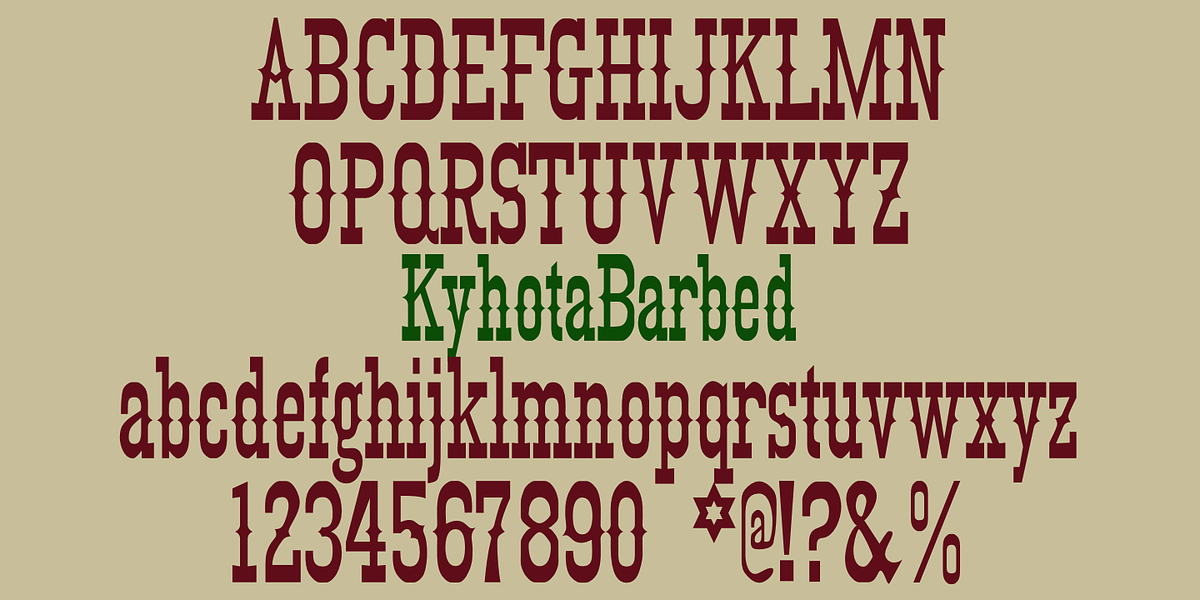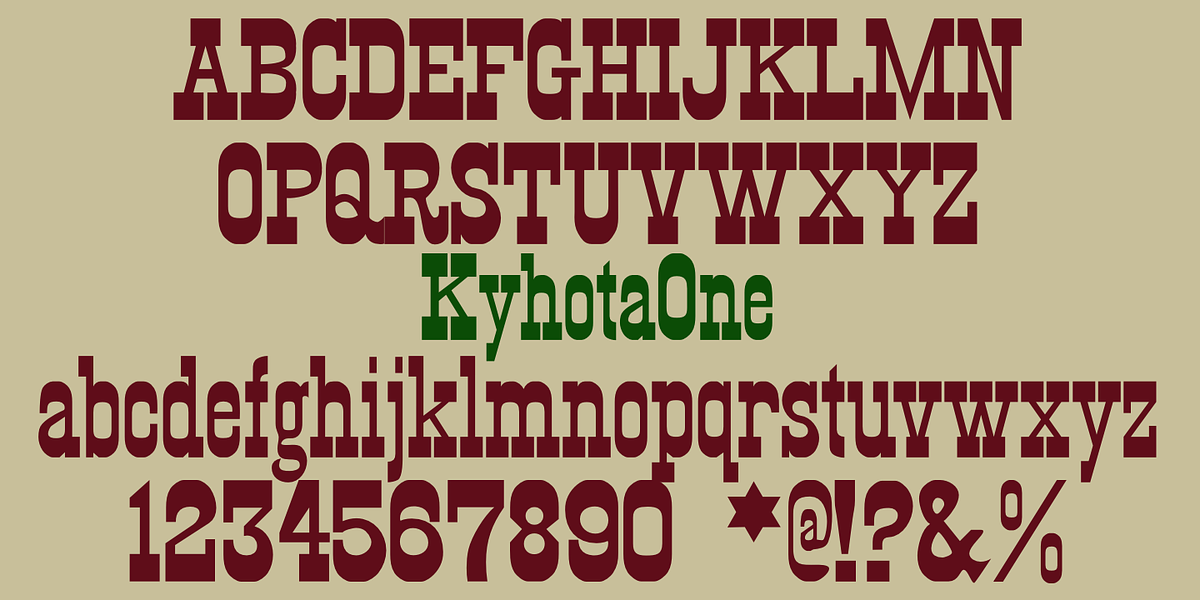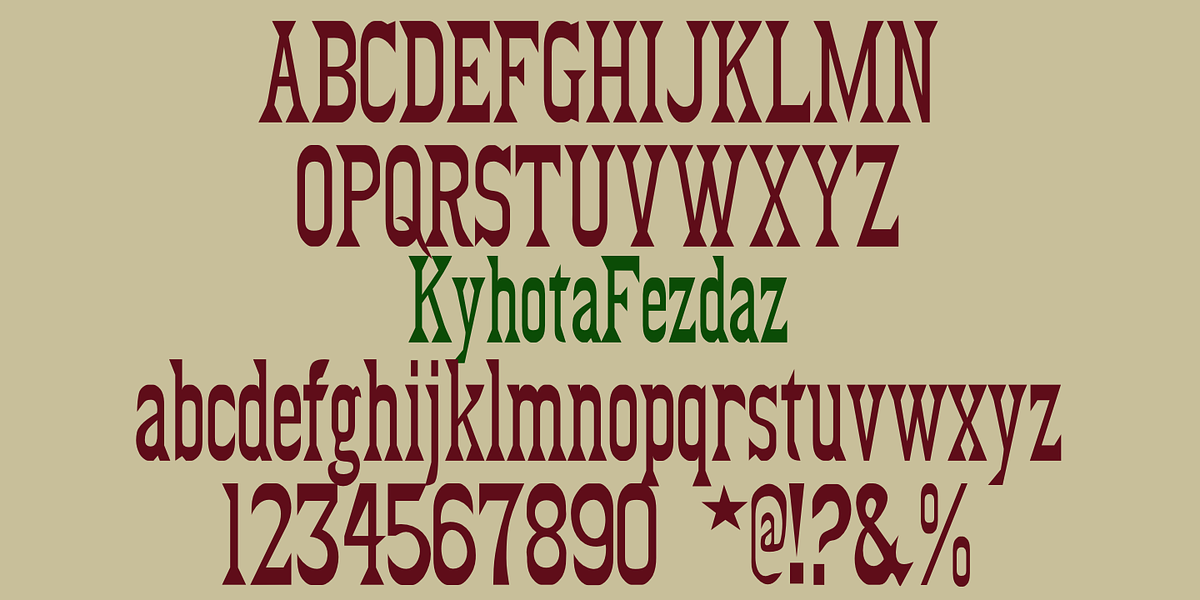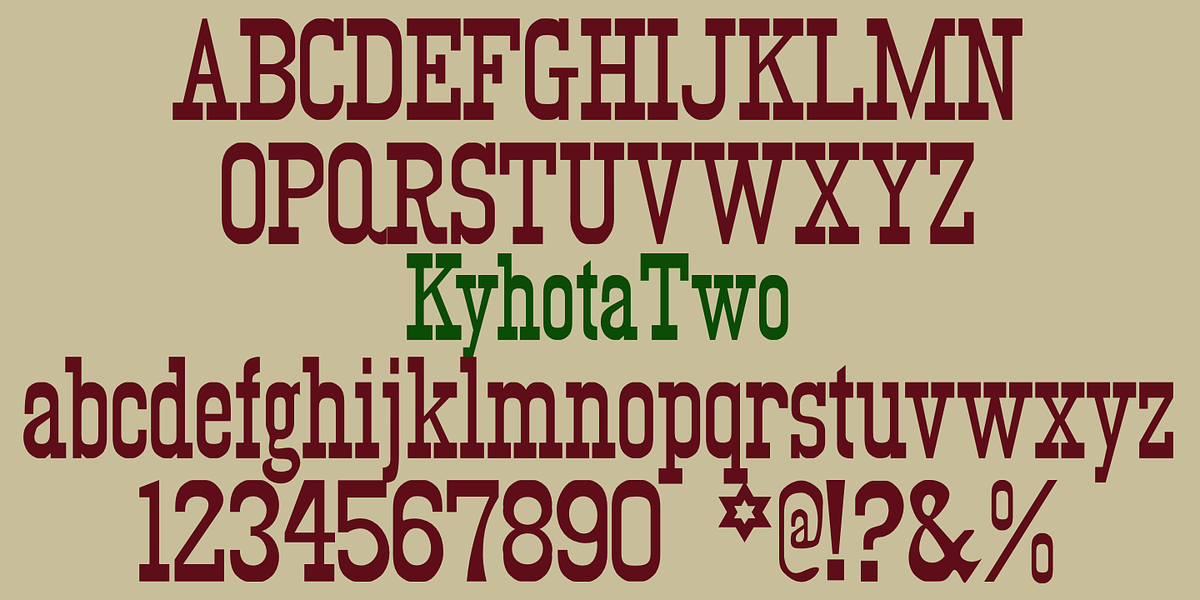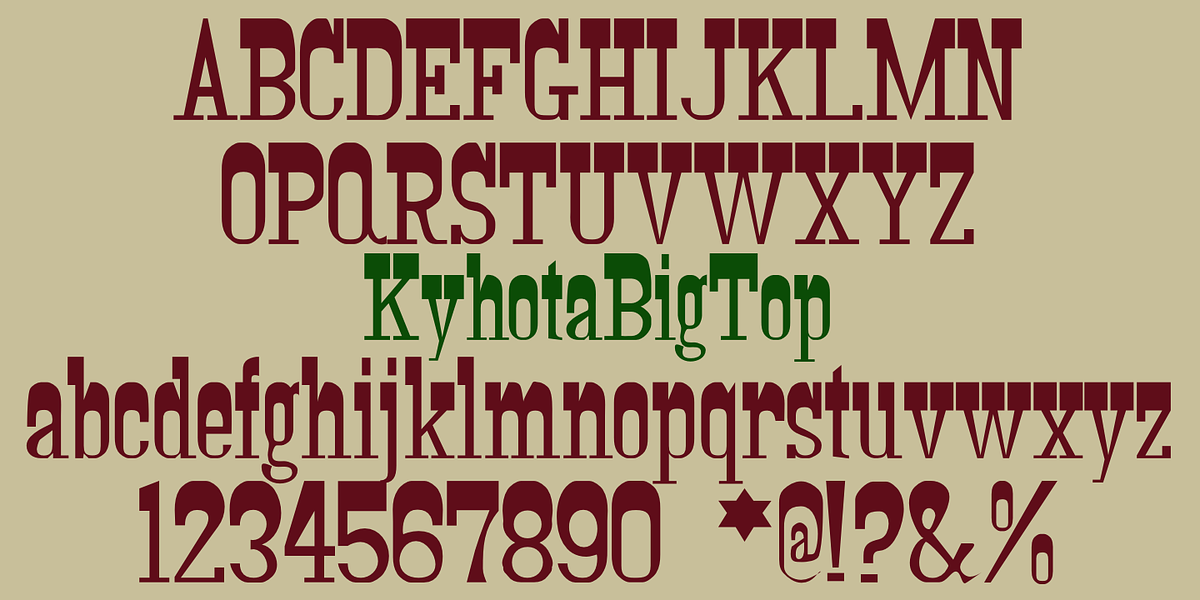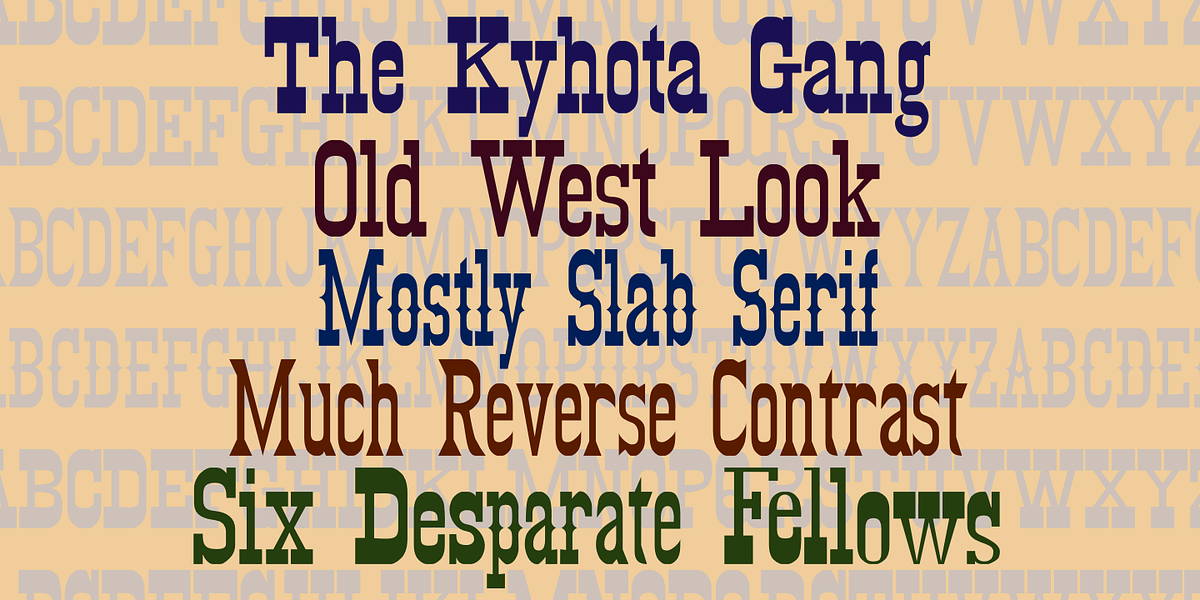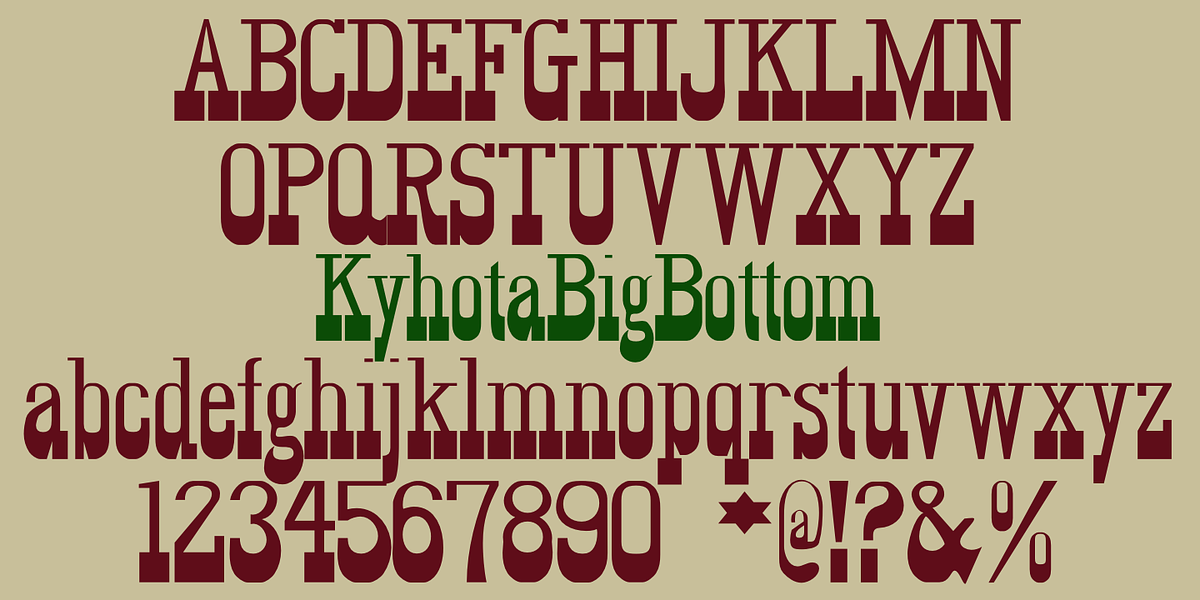
Kyhota
The Kyhota font family evokes a classic 'Old West' aesthetic through its use of thick slab serifs. Different variations within the family explore condensed proportions and unique serif treatments, such as barbs on verticals and flared serifs. These stylistic elements draw inspiration from nineteenth-century western typography.